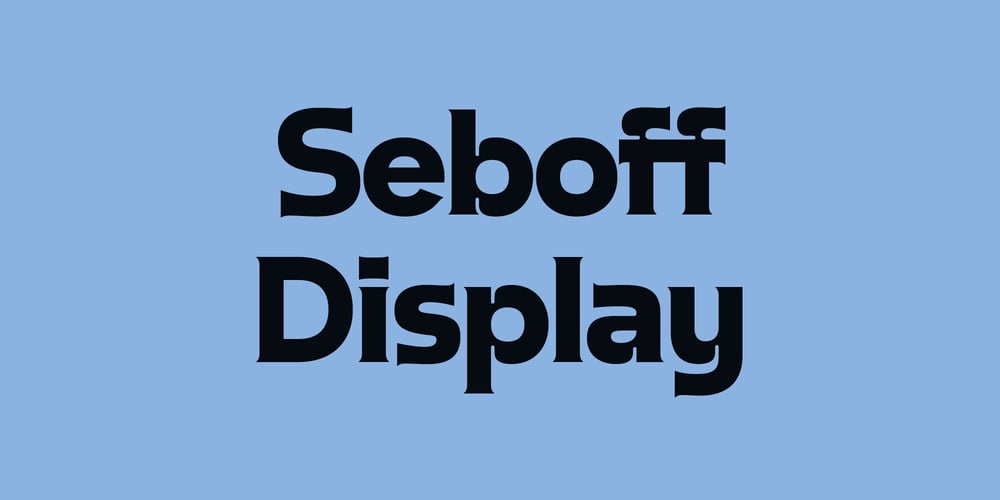
Seboff Display
Seboff Display font
Seboff Display Font Family was designed by Mariya Lish and published by Inhouse Type. Seboff Display contains 8 styles and family package options. Seboff Display invites you to navigate the captivating landscape of ink traps. It delves deeply into the ornamental intricacies of these features, pushing the boundaries while maintaining legibility. As a result, Seboff Display has evolved into a robust serif typeface, conveying a modern and refined aesthetic akin to a meticulously tailored, yet flamboyant suit.